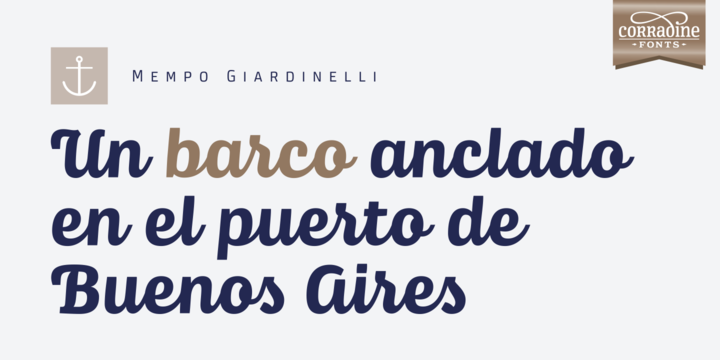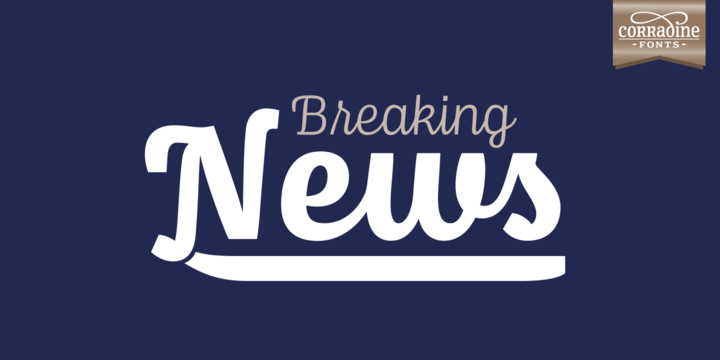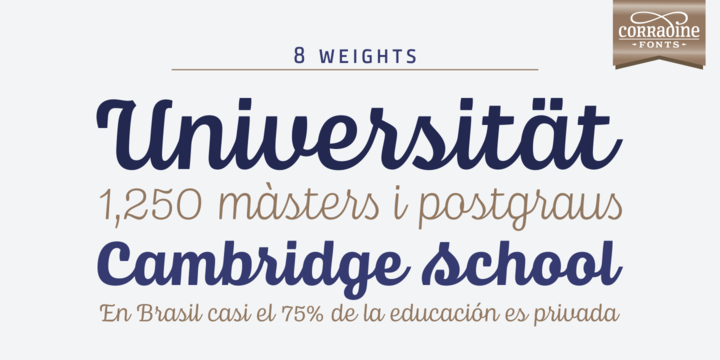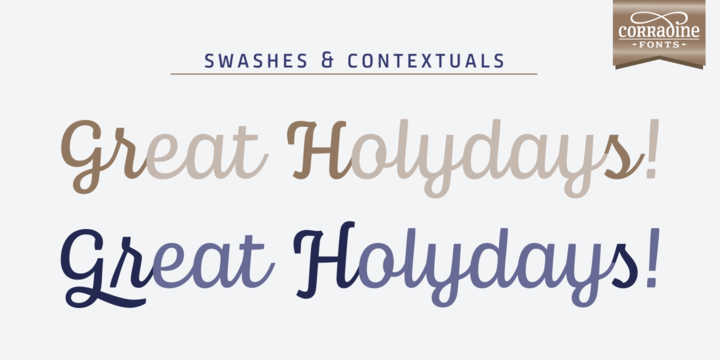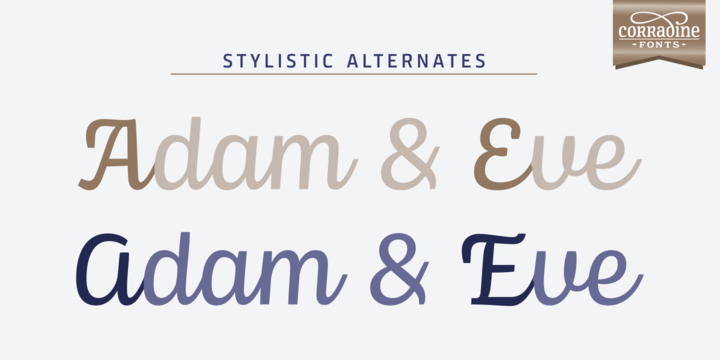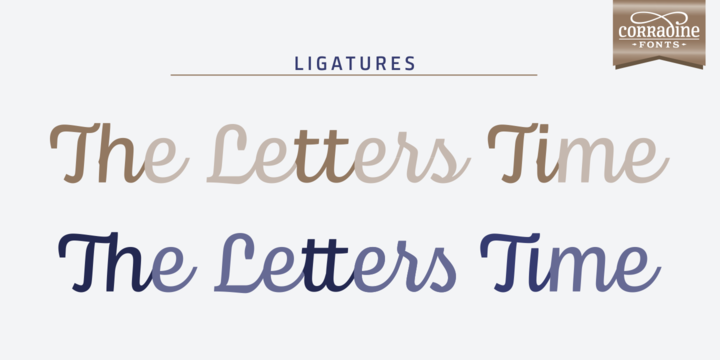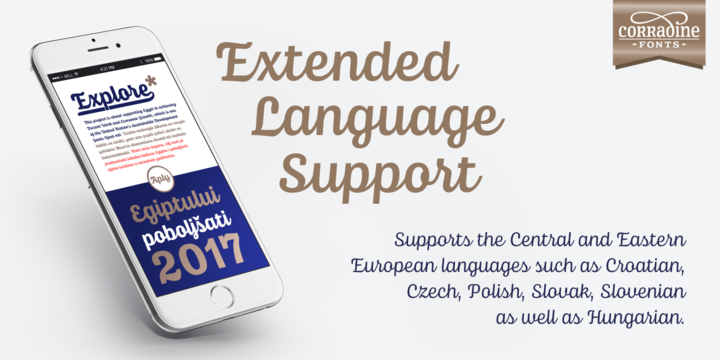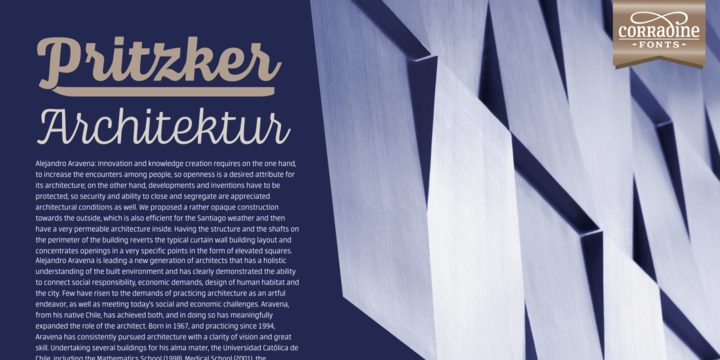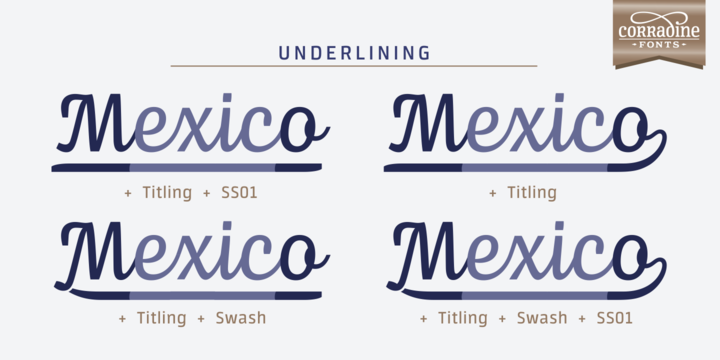
Scrans Family Font
About Scrans Family Font
Scrans is a beautiful font family! It can be used for various purposes such as: headlines, book covers, posters, invitations and much more! Perfect for those who like to be creative!